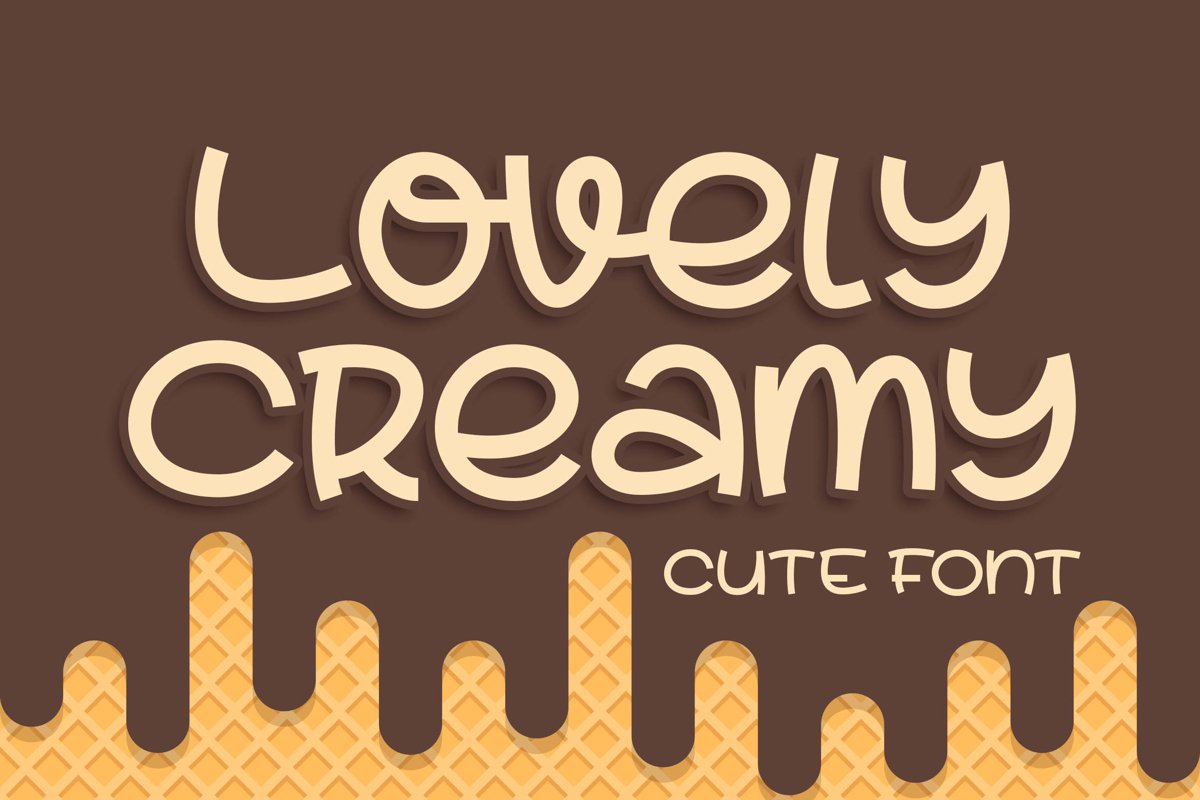
Introducing of our new product the name is Lovely Creamy a Cute Font. Lovely Creamy inspired by bouncy quirky this font is a fun theme very good for, book cover, poster, t-shirt, quote, logotype, craft and etc.
MULTILINGUAL ACCENT :
ØÆøæ¢ÐŒœÁĂÂÀÄĄÅÃǼĆČÇĈĊĎÉĔĚÊËĖÈĘĞĜĢĠĤÍĬÎÏİÌĮĨĴĶĹĽĻĿŃŇŅÑÓŎÔÖÒŐǾÕŔŘŖŚŠŞŜȘŤŢÚŬÛÜÙŰŲŮŨẂŴẄẀÝŶŸỲŹŽŻáăâäàąåãǽćčçĉċďéĕěêëėèęğĝģġĥíîïìįĩĵķĺľļŀńʼnňņñóŏôöòőǿõŕřŗśšşŝșťţŭûüűùųůũẃŵẅẁýŷÿỳźžż
FEATURES :- Uppercase